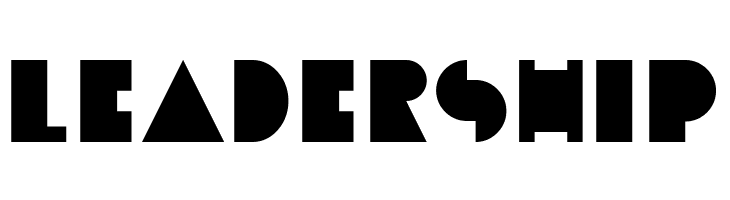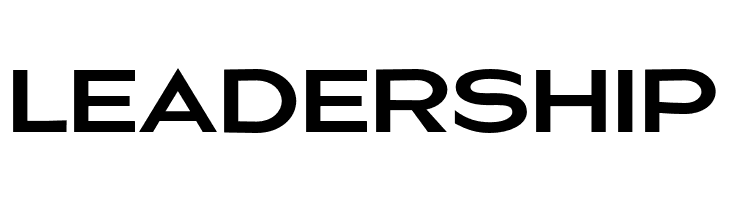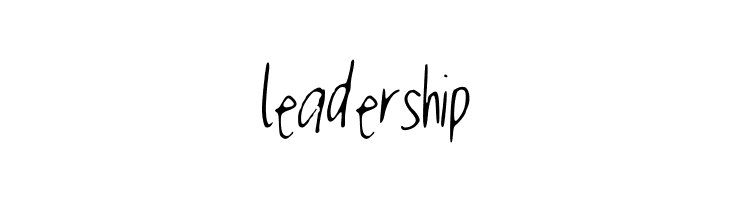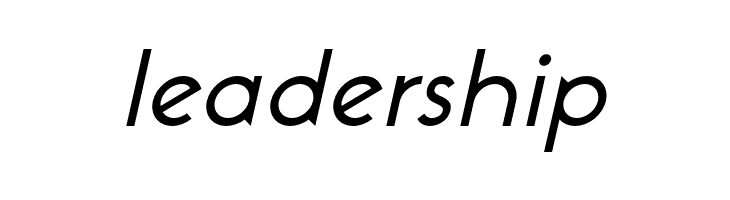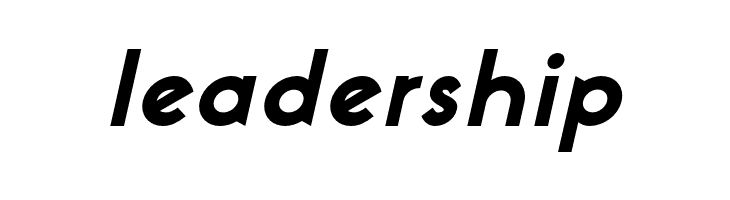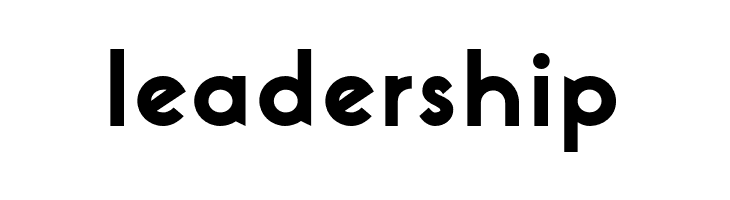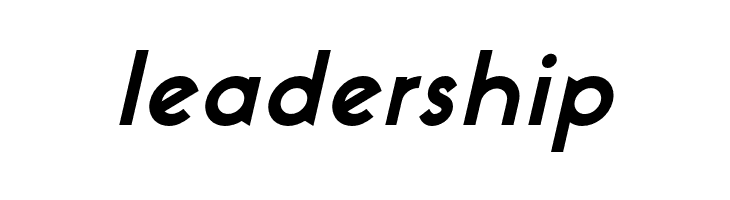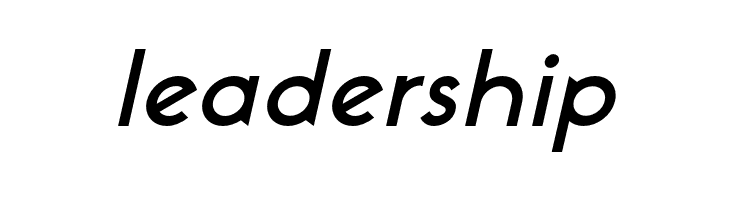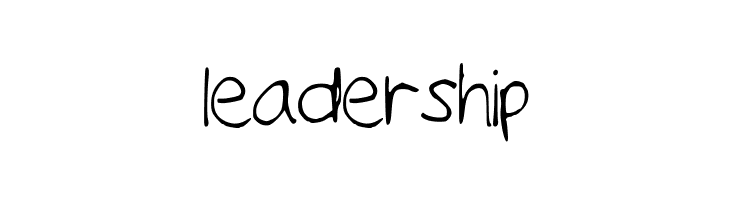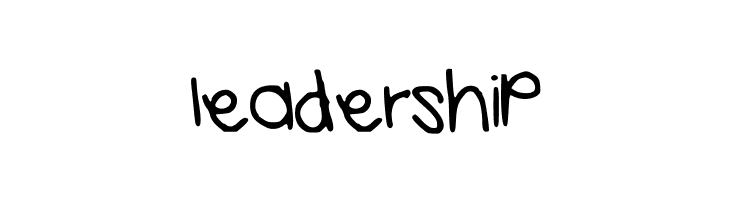
( Fonts by Vanessa Bays - bythebutterfly.com )
A tall, narrow, and modern font with elongated, thin characters.
( Fonts by Des Gomez )
A bold, playful handwritten font with a quirky, artistic style.
( Fonts by MonkeyRoodles Fonts )
A playful, handwritten font with a whimsical and casual style.
A playful and casual handwritten font with smooth, rounded edges.
A distressed, chaotic font with a grungy, painted appearance.
( Fonts by nadeznuts )
A casual, handwritten font with a playful and approachable style.
( Dominique Idiart - dominiqueidiart.myportfolio.com )
A playful, irregular handwritten font with quirky angles and uneven strokes.
A bold, geometric font with strong, industrial characteristics.
( victoriabreton.com/ )
A playful, whimsical font with curly, hand-drawn letterforms and consistent stroke width.
A bold, high-contrast decorative font with ornate uppercase and streamlined lowercase letters.
An ornate, decorative font with intricate floral embellishments.
A modern, medium-weight sans-serif font with a clean and versatile design.
A bold, industrial-style font with geometric and mechanical elements.
( Fonts by Nadine Dickmann )
A playful, casual handwritten font with consistent stroke width and informal style.
( www.graphicsbykateri.tumblr.com/ )
A playful, casual handwritten font with irregular strokes and a friendly appearance.
A runic-inspired font with angular, geometric characters.
( www.artismelb.com/ )
A playful, bold font with rounded, cartoon-like characters.